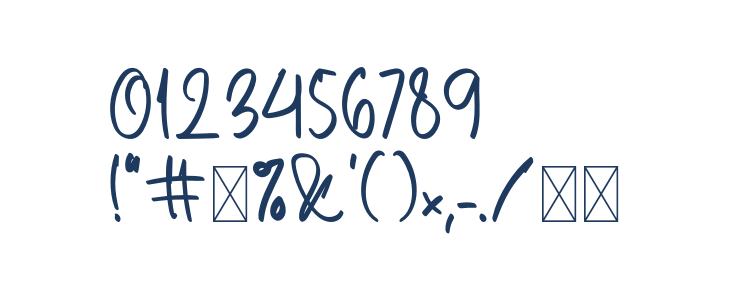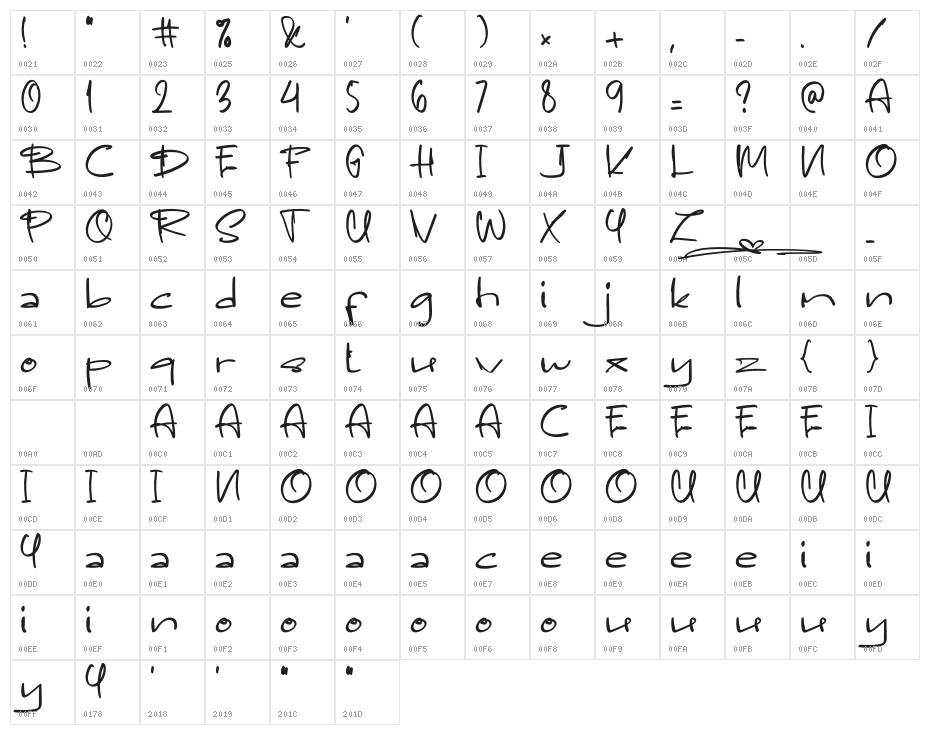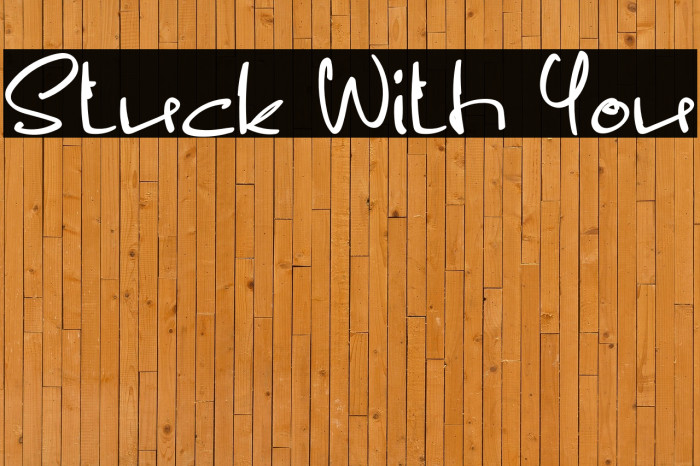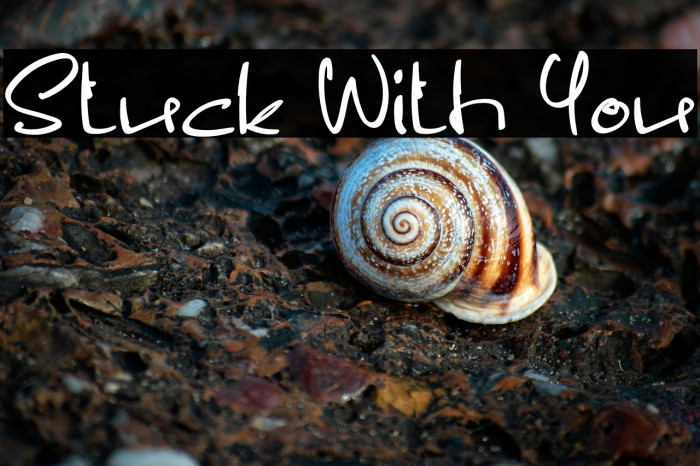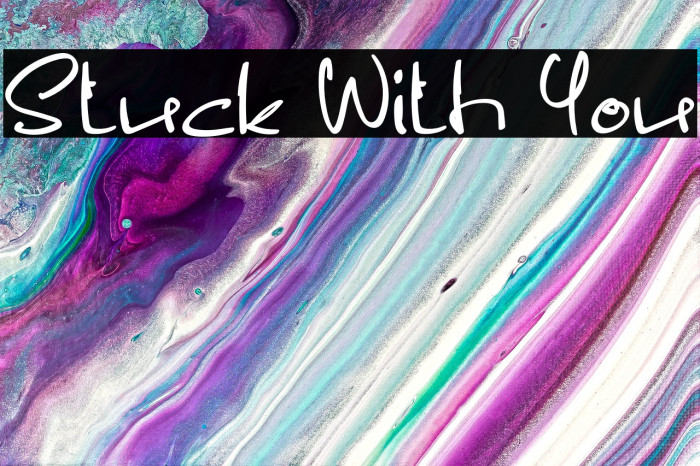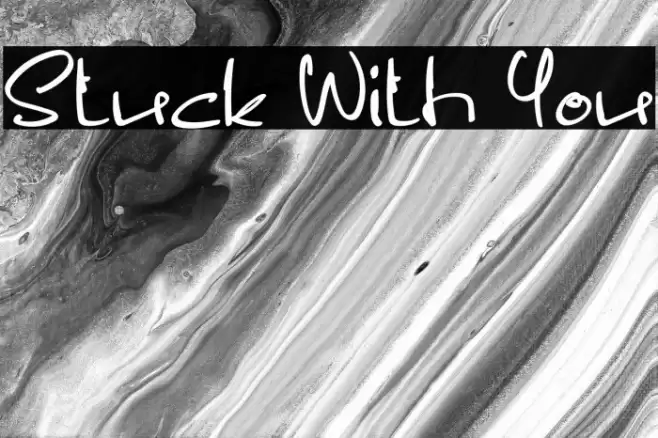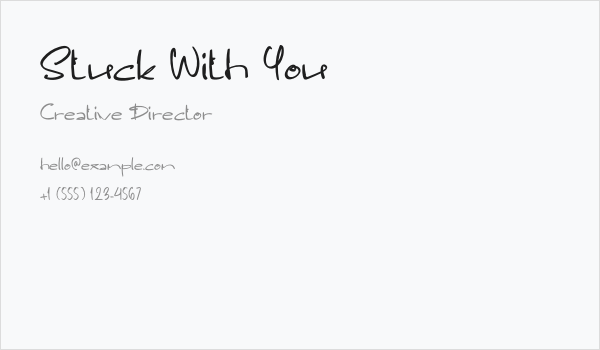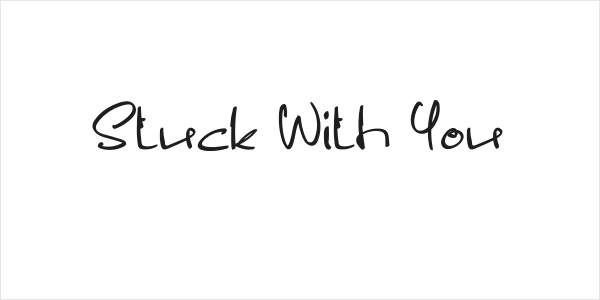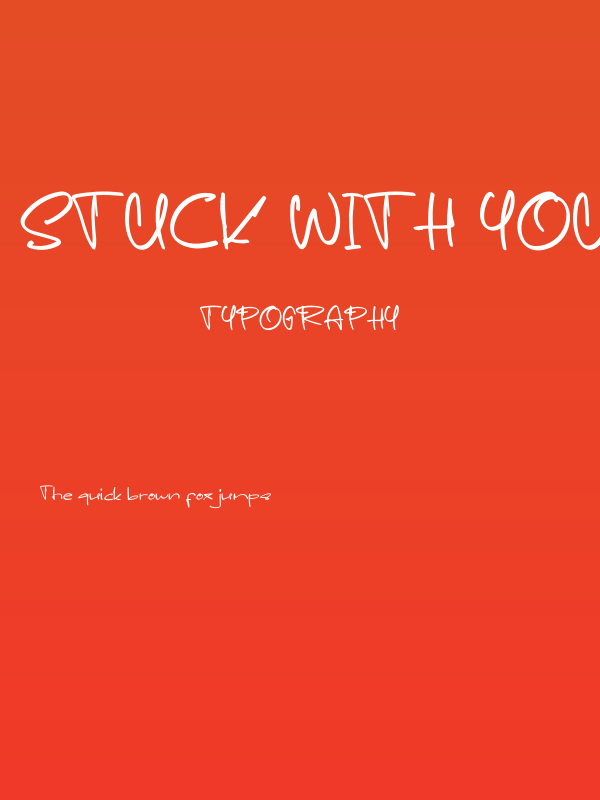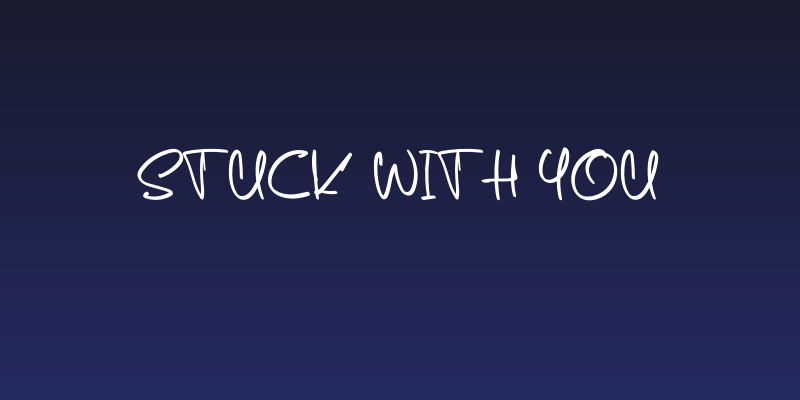
Stuck With You Font
Stuck With You Description
This font exudes a playful and casual handwritten style, characterized by its irregular strokes and informal appearance. The uppercase letters are bold and slightly slanted, giving them a dynamic feel, while the lowercase letters maintain a consistent flow with a touch of whimsy. The numerals are rounded and maintain the playful aesthetic, making them easily distinguishable. Special characters are creatively designed, adding to the font's overall charm. This font is perfect for projects that require a personal touch or a sense of spontaneity.
| Proposed Projects | Ideal for greeting cards, personal blogs, children's books, and informal branding. |